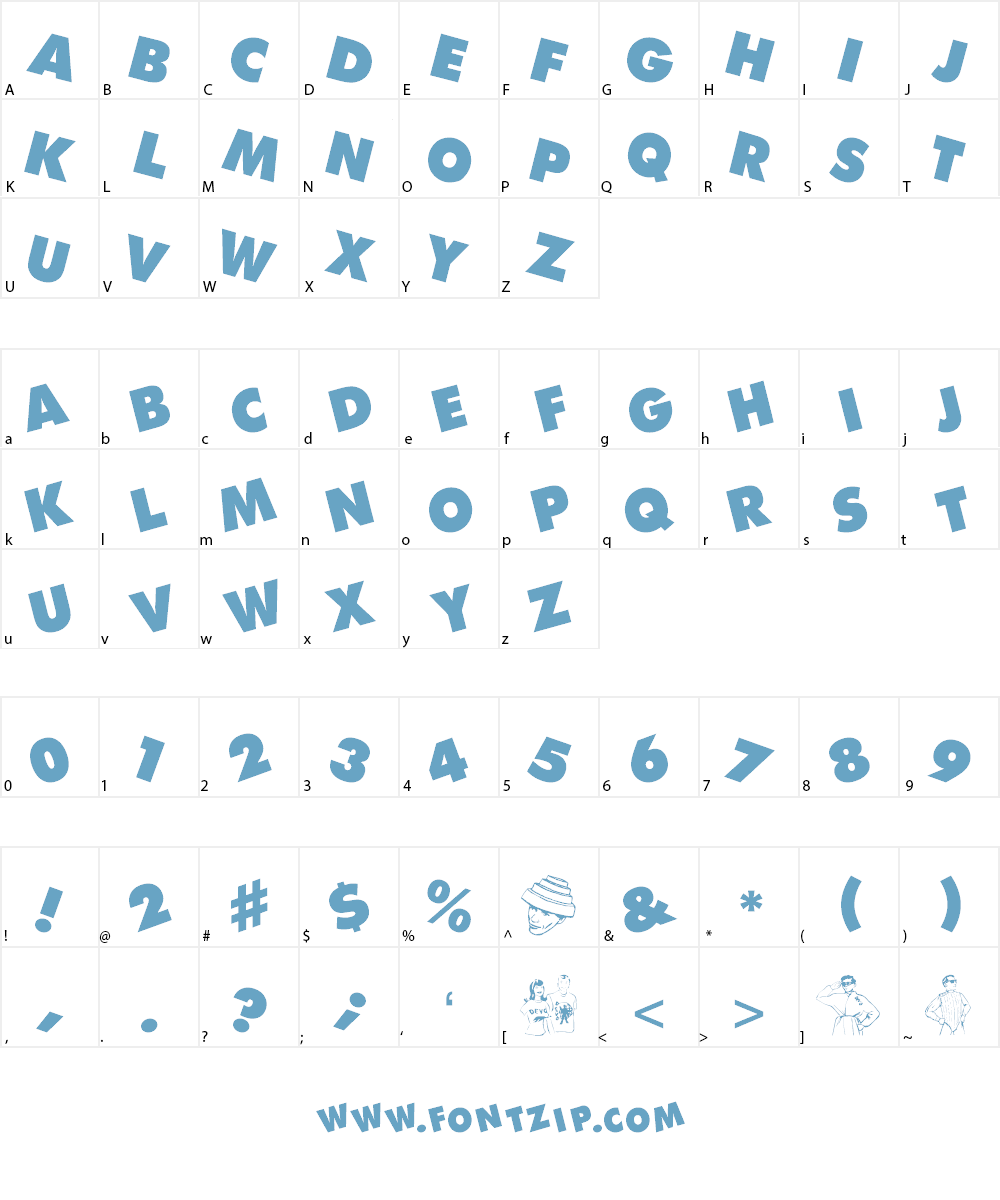
Inspired by the wacky letters that DEVO,The Supreme Spuds
themselves, used as a logo.
Obviously not a good font for prose
(unless you're totally devolved),
DEVO works best for titles and headlines.
Try alternating caps and lowers for best effect.